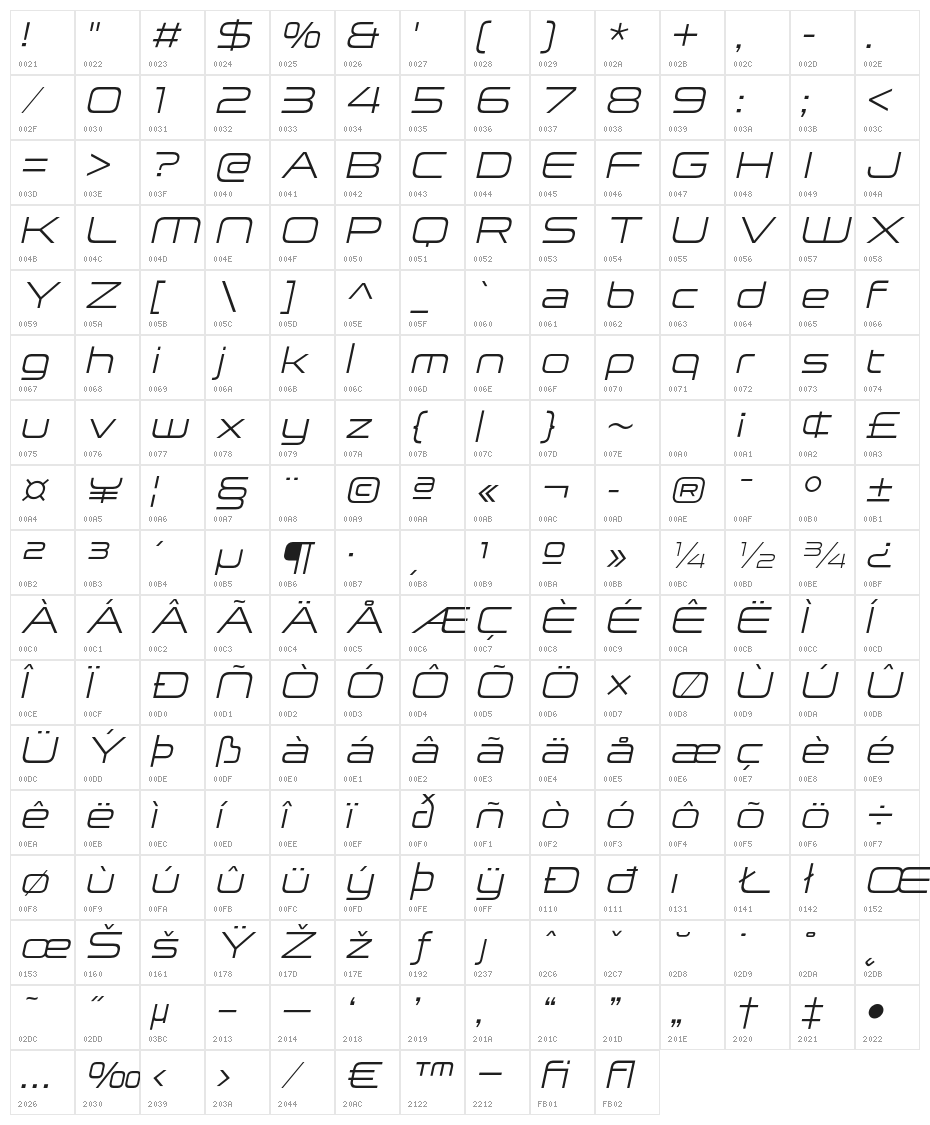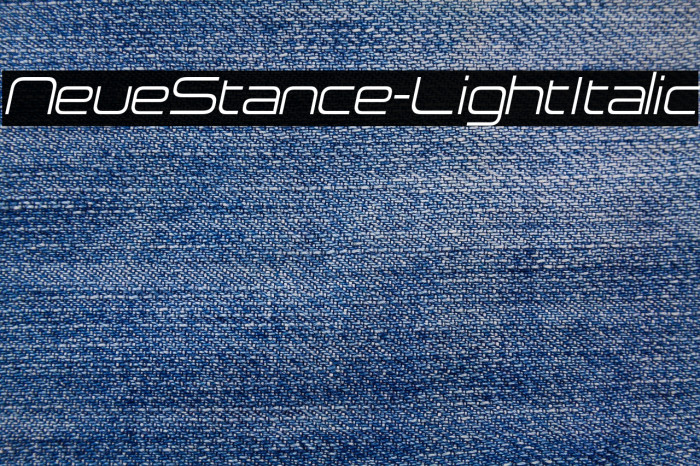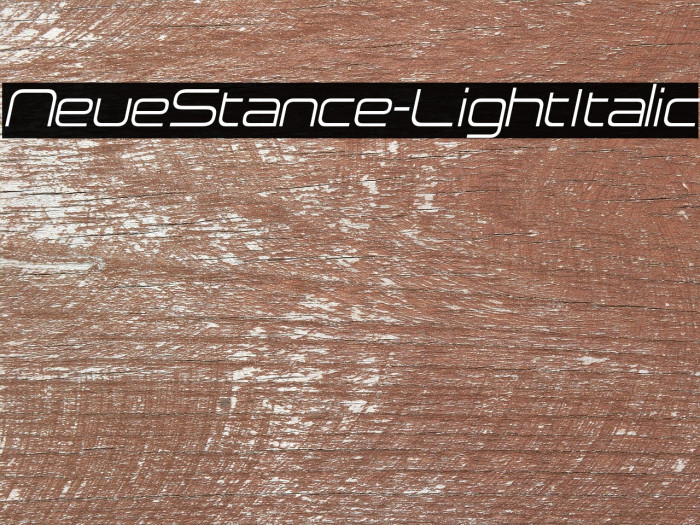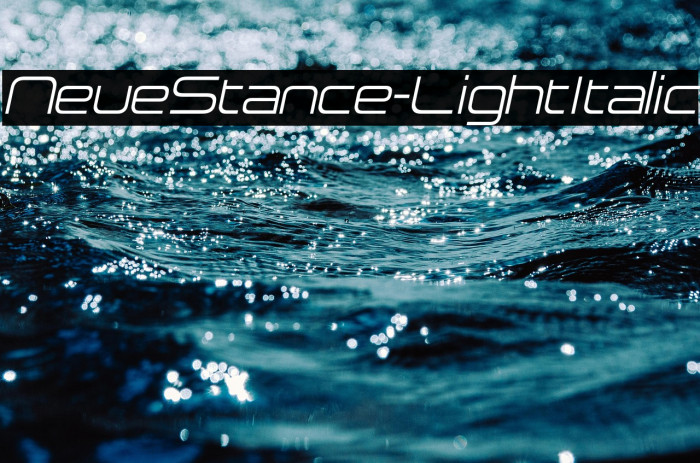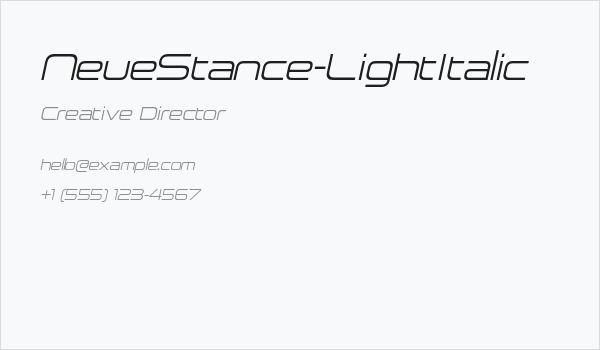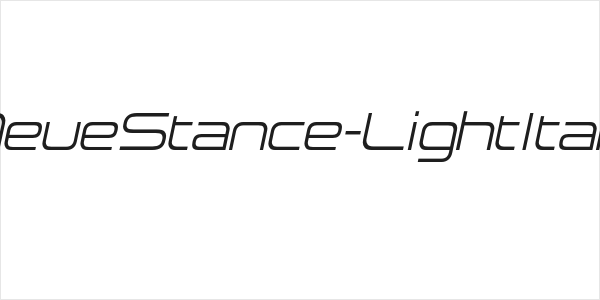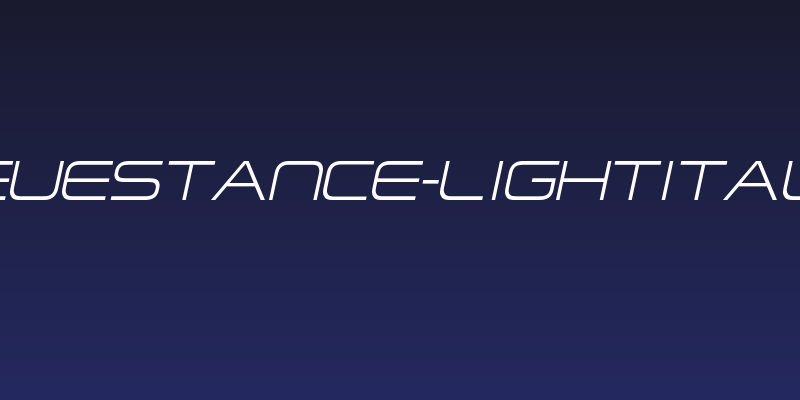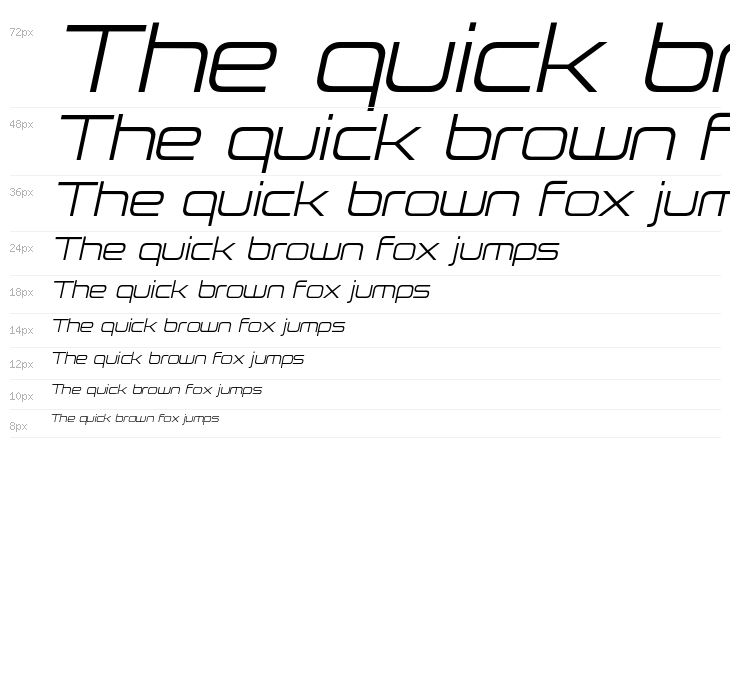
NeueStance-LightItalic Font
NeueStance-LightItalic Description
This font features a sleek, modern design with a light and airy feel. The characters are slightly italicized, giving them a dynamic and forward-leaning appearance. The strokes are thin and consistent, contributing to a clean and sophisticated look. The font maintains a uniform width across all characters, enhancing readability while preserving a stylish aesthetic. The spacing between characters is balanced, ensuring clarity and legibility. This font is well-suited for contemporary design projects that require a touch of elegance and modernity.
| Use Case | Headlines, Logos, Web design |
| Proposed Projects | Ideal for modern branding, tech-related designs, sleek product packaging, and contemporary web design. |